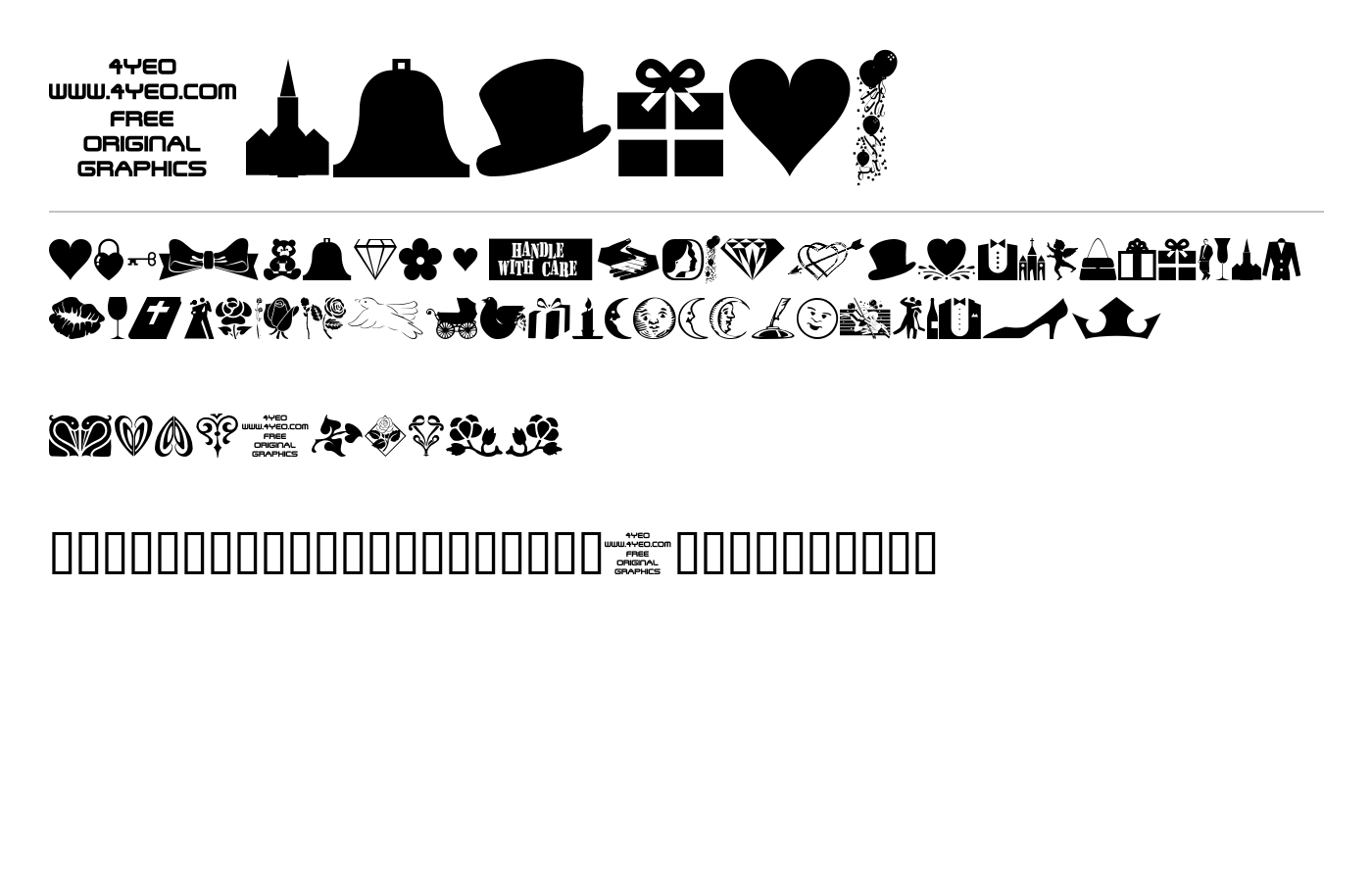
4YEOVAL is a decorative symbol font featuring bold, playful icons with a modern, rounded aesthetic. Its thick, solid shapes and clean edges make it ideal for adding whimsical, eye-catching graphics to invitations, greeting cards, or festive branding. This font works best in creative projects where fun and visual impact are key, rather than continuous text.
4YEOVAL Font
About 4YEOVAL Font